TypeTalk: Eight Timeless Typefaces
Fonts that are in vogue come and go, with popular typestyles constantly being replaced by newer, trendier designs. But even with the hundreds of new typefaces being released each year, there are some that don’t seem to age, and continue to look fresh while serving their typographic purpose.
Here are eight typefaces that, in spite of having been around for dozens—and in some cases hundreds—of years, don’t appear to have an expiration date any time soon.Â
ITC Machine Bold
This brawny, geometric, uppercase sans serif design was created in 1970 by the design team of Ronnie Bonder and Tom Carnase. It comes in two weights, but the Bold is a much stronger, more impactful design. ITC Machine Bold is most effective when set with tight letter- and line spacing, as this tightly-packed appearance creates a dense wall of typographic texture that makes a powerful statement. ITC Machine Bold is excellent for posters, headlines, signage, and other display applications that call for a commanding, authoritative look.
Fette Fraktur
Fette Fraktur is a blackletter typestyle that was originally issued by the C.E. Weber foundry in Germany in 1875. As the translation suggests, Fette Fraktur has a fat, broken appearance. This forceful, historic design is noted for its dense black texture, extreme thick and thin strokes, and highly decorated caps, all evoking the look of the Middle Ages.
Although this style of typeface might seem to have a very limited application, Fette Fraktur has expanded way beyond this narrow scope. Its highly-stylized, impactful appearance has become quite fashionable, and can be seen on book covers, magazine spreads, as well as posters and movie titles. It also lends itself to very dramatic initial caps.
Fette Fraktur is used sparingly, yet with purpose, making for a very stylish, eye-catching editorial spread. Courtesy of Nancy Campbell and Trevett McCandliss.
Linoscript
Linoscript is an elegant, readable, upright script that never seems to age. It was designed by Morris Fuller Benton in 1905 and released by American Type Founders as Typo Upright. It was renamed Linoscript in 1926 when it was integrated into the Linotype technology. Modeled on the then-popular style of upright French scripts, Linoscript has flourished capitals and connected lowercase letters with extravagant loops on the ascenders. It is ideal for a broad range of applications, including invitations, book covers, greeting cards, menus, editorial heads and subheads, and other uses requiring an elegant yet easy-to-read formal script.
The use of Linoscript for the branding of this television show definitely sets the tone.
Clarendon
Clarendon is a slab serif (also knows as Egyptianne), a category of typestyle that first appeared at the beginning of industrialization in Great Britain in 1820. Originally designed by Robert Besley in 1838, it was reworked by Hermann Eidenbenz in 1953 for Monotype, and has been much imitated since.
With its chunky, geometric serifs, and its assertive forms, Clarendon is a timeless design that has never lost its contemporary feel. In spite of its historic beginnings, Clarendon remains a typeface that is widely used in popular culture. It commonly appears in catalogs, on web sites, book covers and movie titles, as well as signage and posters. Clarendon is available in three weights: Light, Roman, and Bold. The lighter weights are legible in small sizes, and the heavier versions make a bold statement when used at larger sizes.
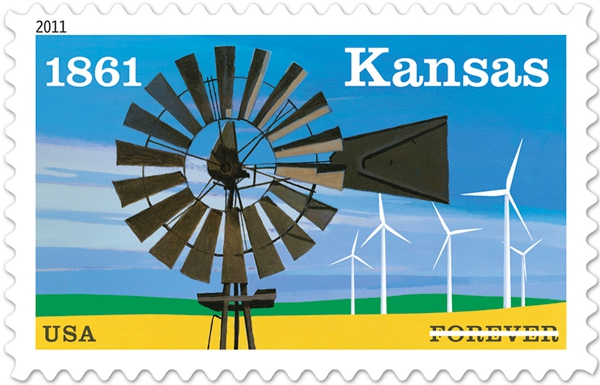
This attractive Kansas statehood stamp, designed in 2011, uses Clarendon.
ITC American Typewriter
Ever since the invention of the typewriter, typefaces have been created to emulate typewriter type. One of the first was ITC American Typewriter, designed by Joel Kaden and Tony Stan in 1974. Its release marked the 100th anniversary of the invention of the typewriter, at a time when the typewriter was the only device used for office communication.
ITC American Typewriter retains the distinctive look of typewriter letterforms, but with improved legibility, especially for text. This typeface has a friendly, familiar appearance, with a touch of nostalgia. Since its release 40 years ago, ITC American Typewriter has never really gone out of style, and can still be seen in use, sometimes in the most unexpected places. In addition to more traditional uses such as logos, branding, and packaging, it can also be found in fashion magazines, mobile devices, and even tattoos! Grungy typewriter fonts might come and go, but this classic is here to stay.
ITC American Typewriter can be seen in a most unexpected of places: two covers of Vogue!
Century Schoolbook
Century Schoolbook is recognizable to many as the typeface we learned to read from. It originated from Century Roman, which was designed in 1894 by Linn Boyd Benton for American Type Founder (ATF). In 1924, his son Morris Fuller Benton designed a variation based on his father’s design, and called it Century Schoolbook.
Although it was originally designed to be an easy-to-read typeface for children’s books, it became popular for advertising typography due to its extreme readability resulting from its open counters, generous character width and x-height, balanced weight contrast, and open letterspacing. Although originally designed in two weights, (Regular and Bold), italics were added at a later date, making this a much more useful typeface. This sturdy design, with its appealing, inviting appearance, is still being used for textbooks, periodicals, and other instances requiring a highly legible text typeface.